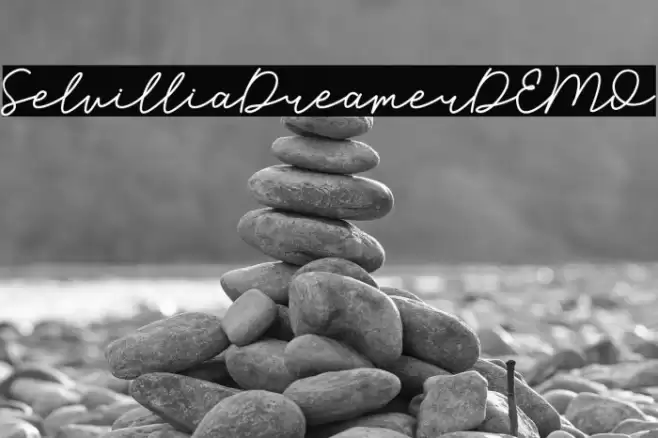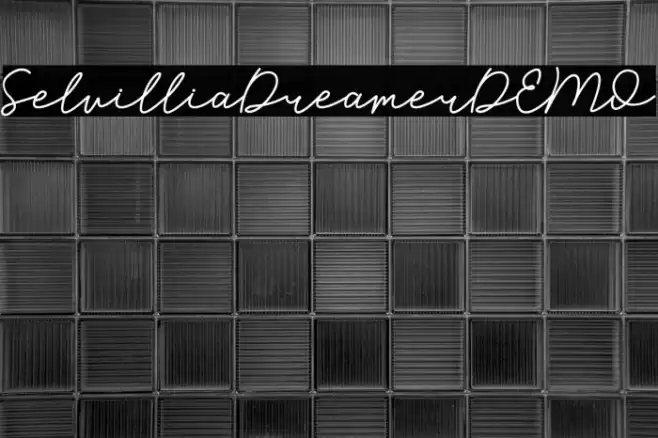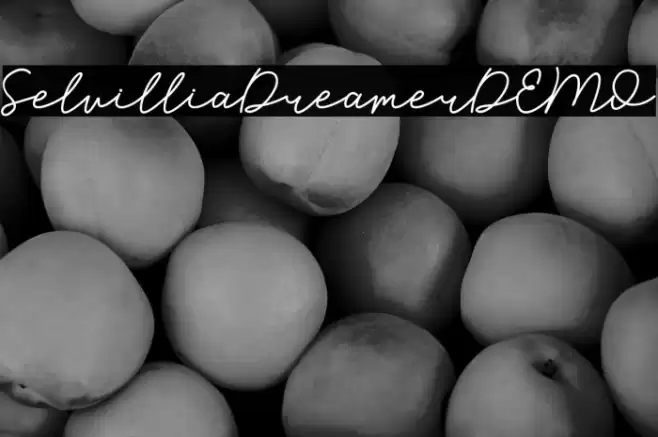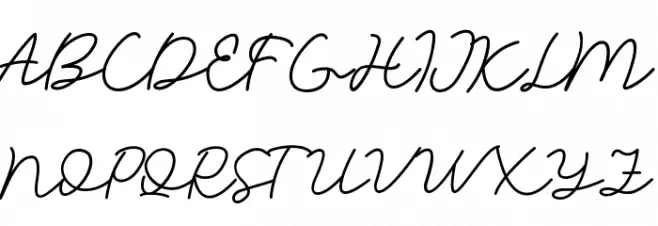
SelvilliaDreamerDEMO Font
SelvilliaDreamerDEMO Description
This font exudes a graceful and fluid handwritten style, characterized by its elegant cursive script that mimics natural handwriting. The letters are connected seamlessly, creating a continuous flow that enhances its readability and aesthetic appeal. The strokes are smooth and consistent, with a slight slant that adds a touch of sophistication. The uppercase letters are slightly larger and more pronounced, while the lowercase letters maintain a uniform height, contributing to a balanced and harmonious appearance. This font is ideal for projects that require a personal and artistic touch, such as invitations, greeting cards, and branding materials.
A graceful and fluid handwritten cursive script font from Regular fonts.
- Proposed Projects: Ideal for invitations, greeting cards, branding materials, and artistic projects.
- Overall Style: Elegant and Artistic
- Use Case: Headlines, Artistic text, Invitations